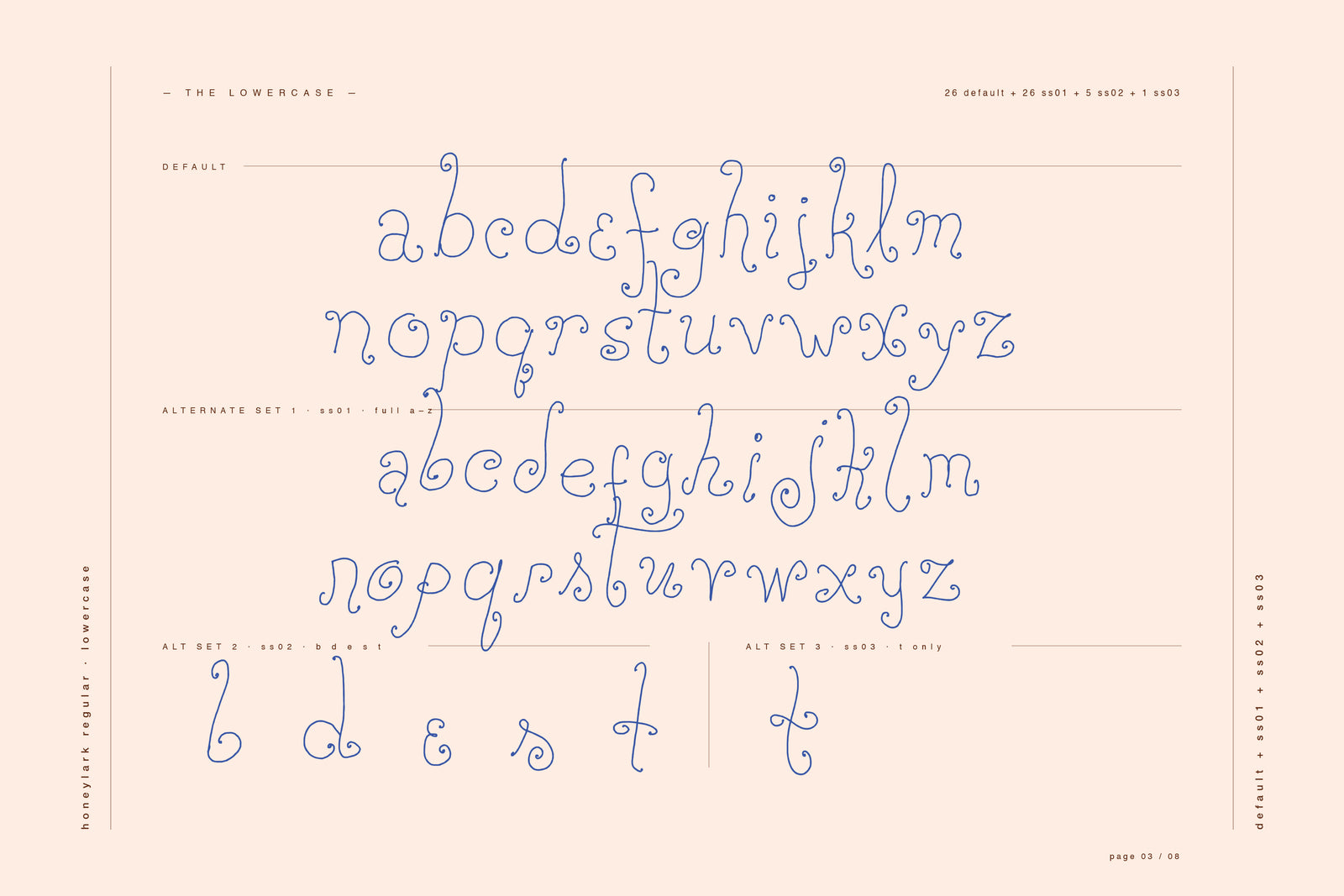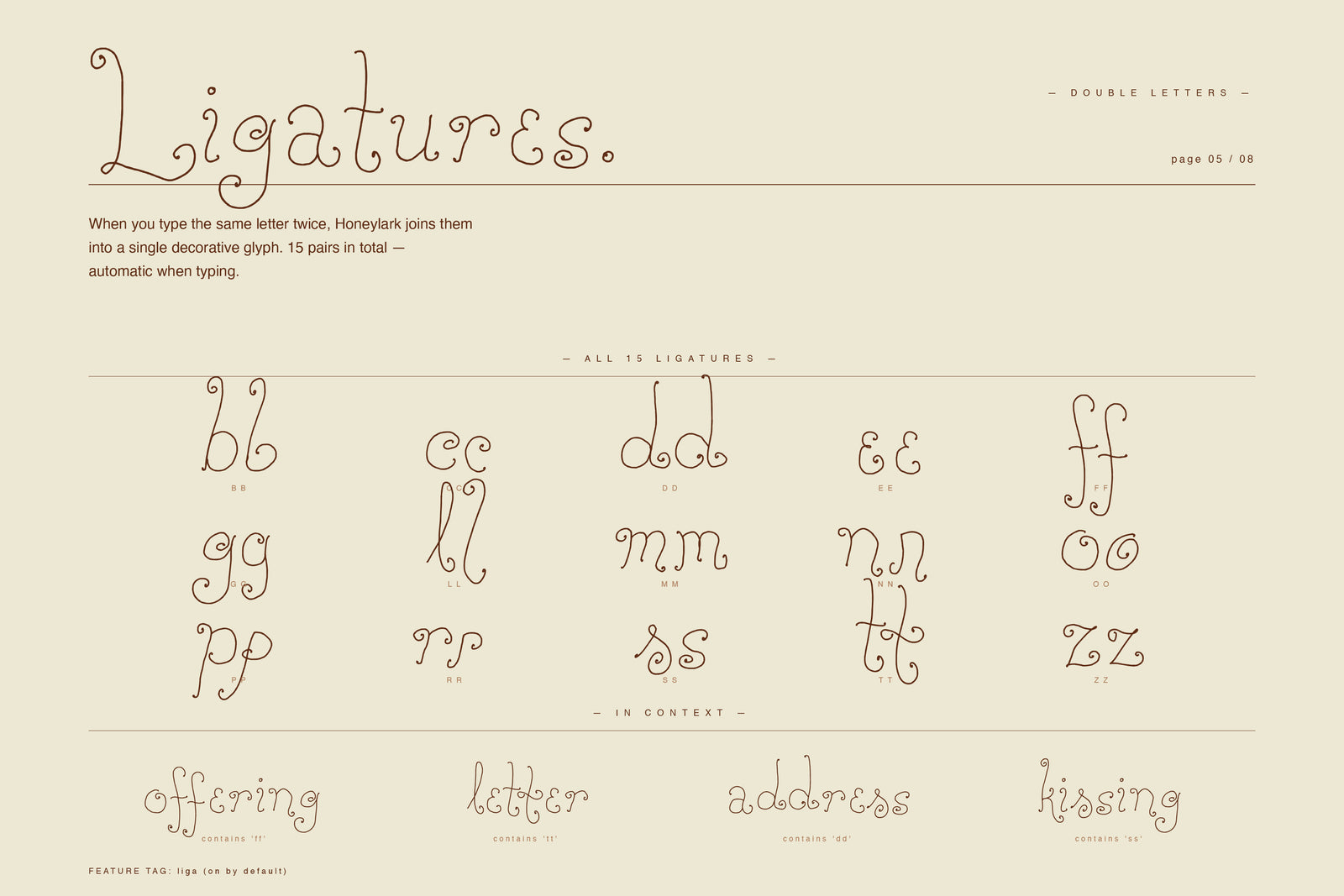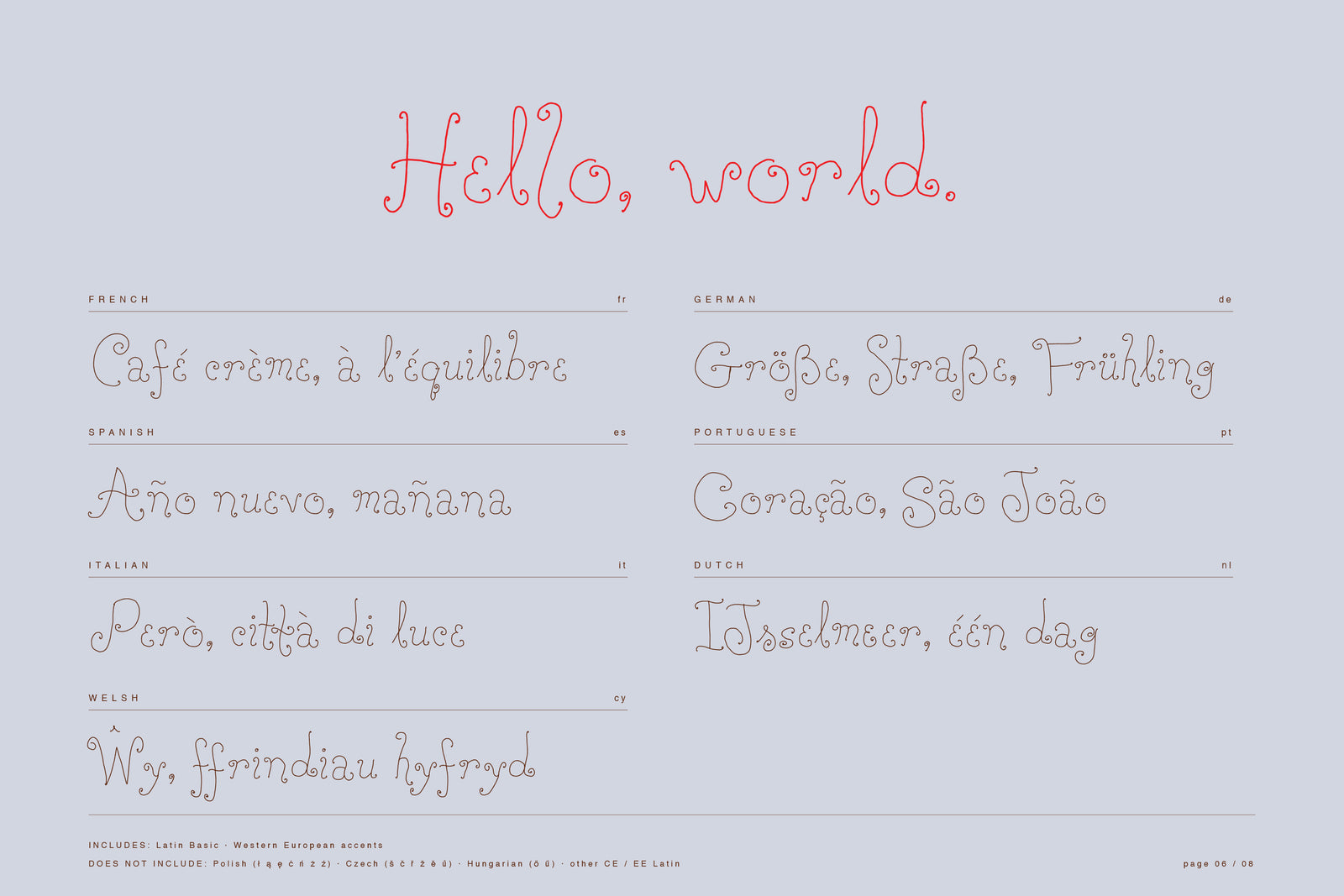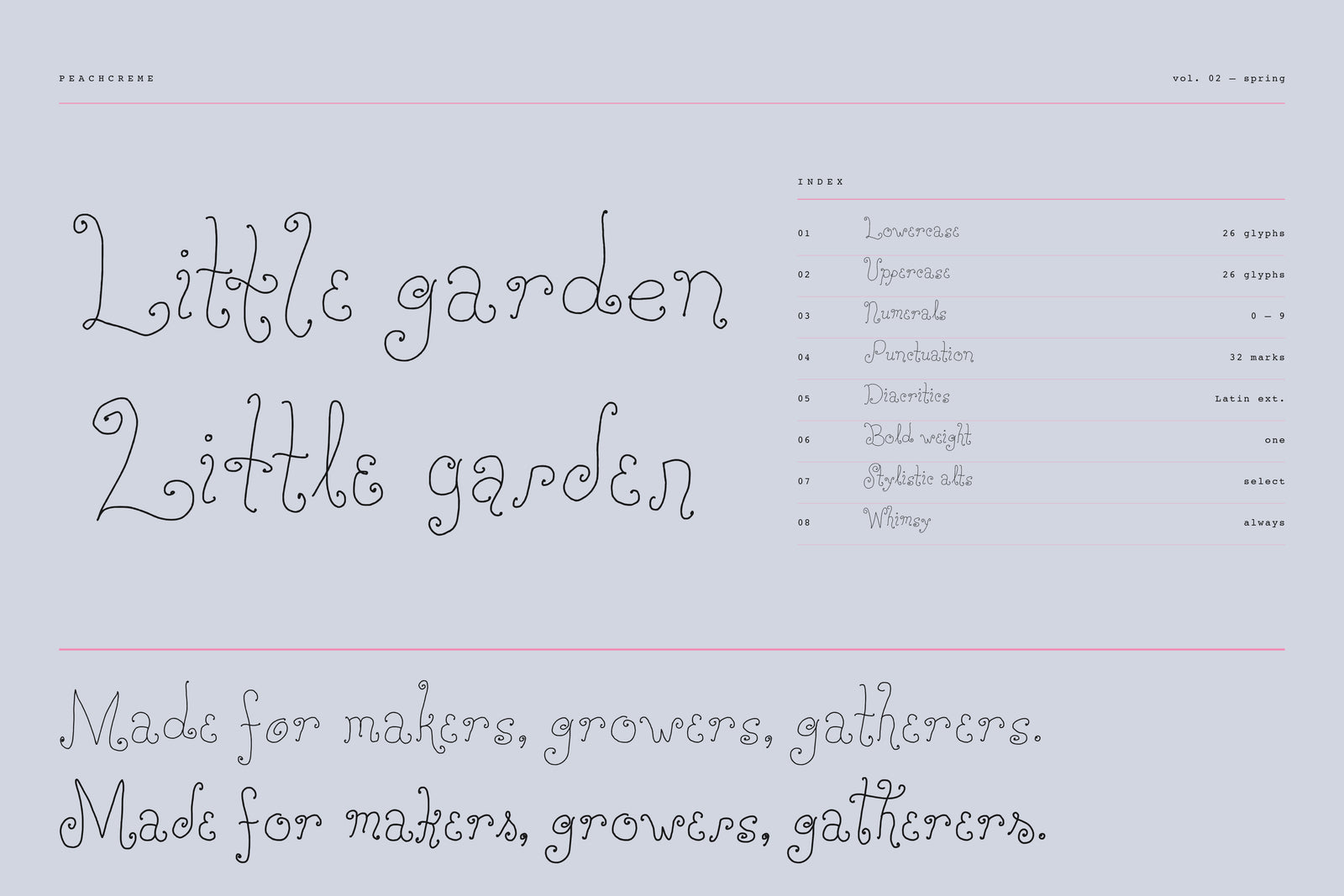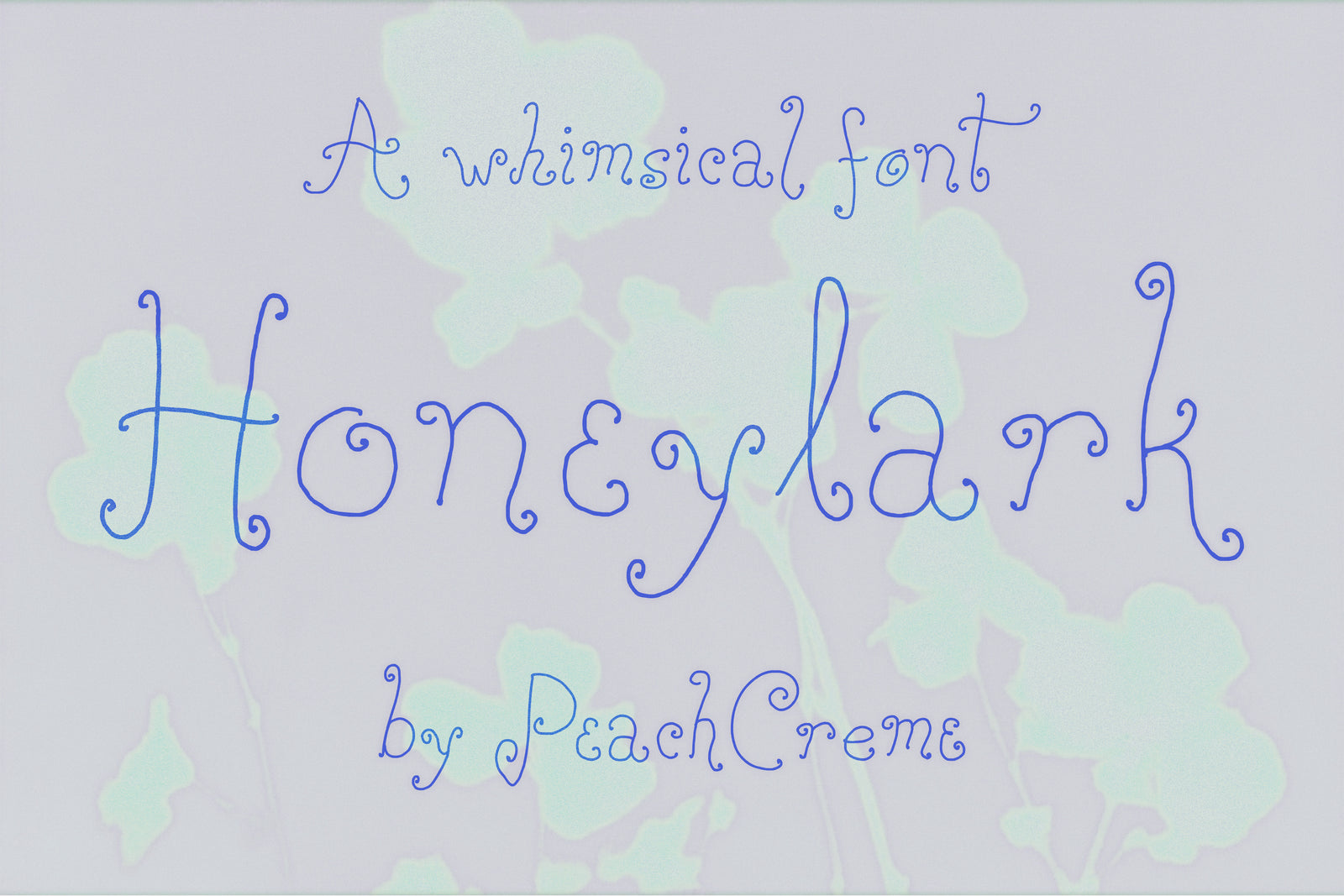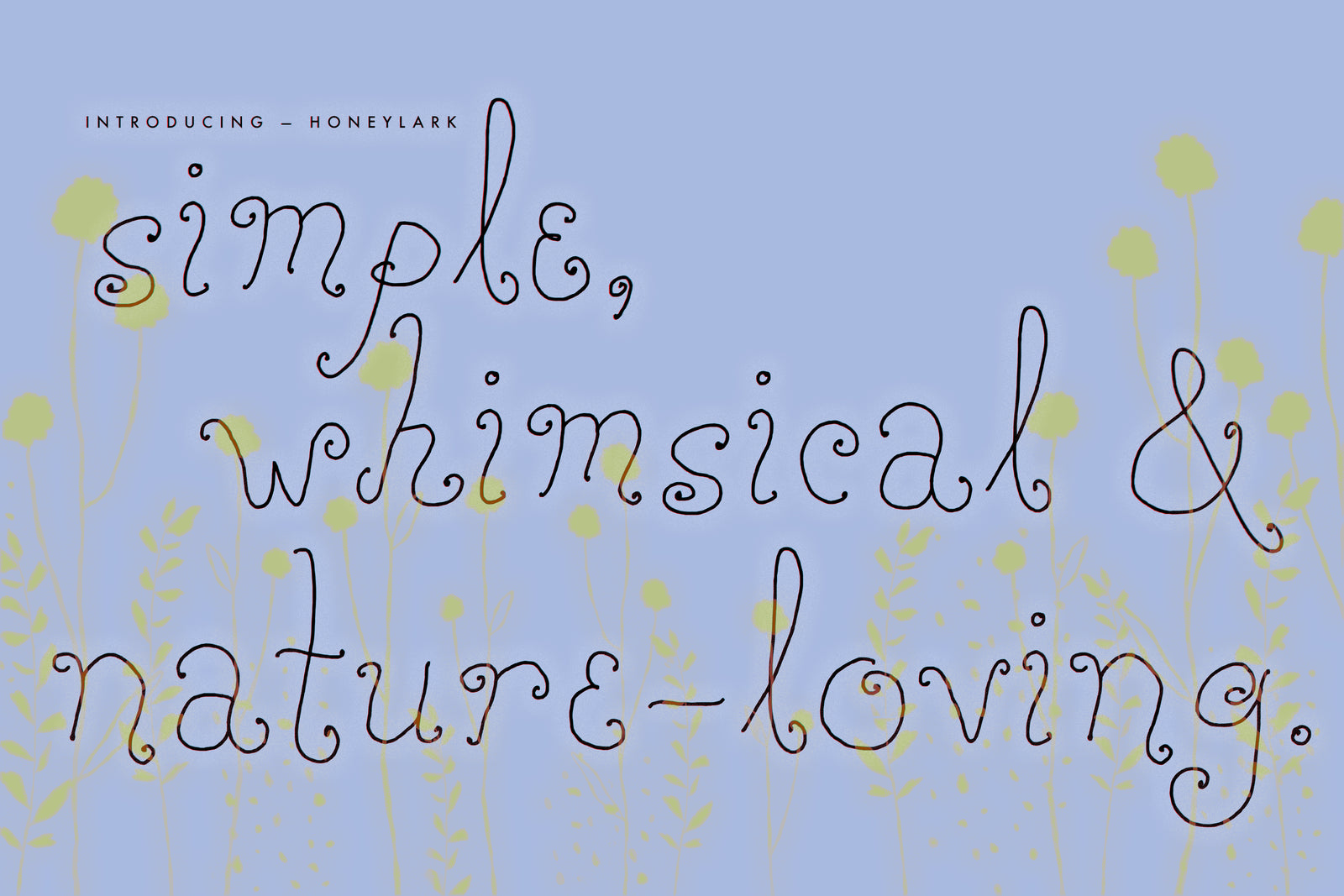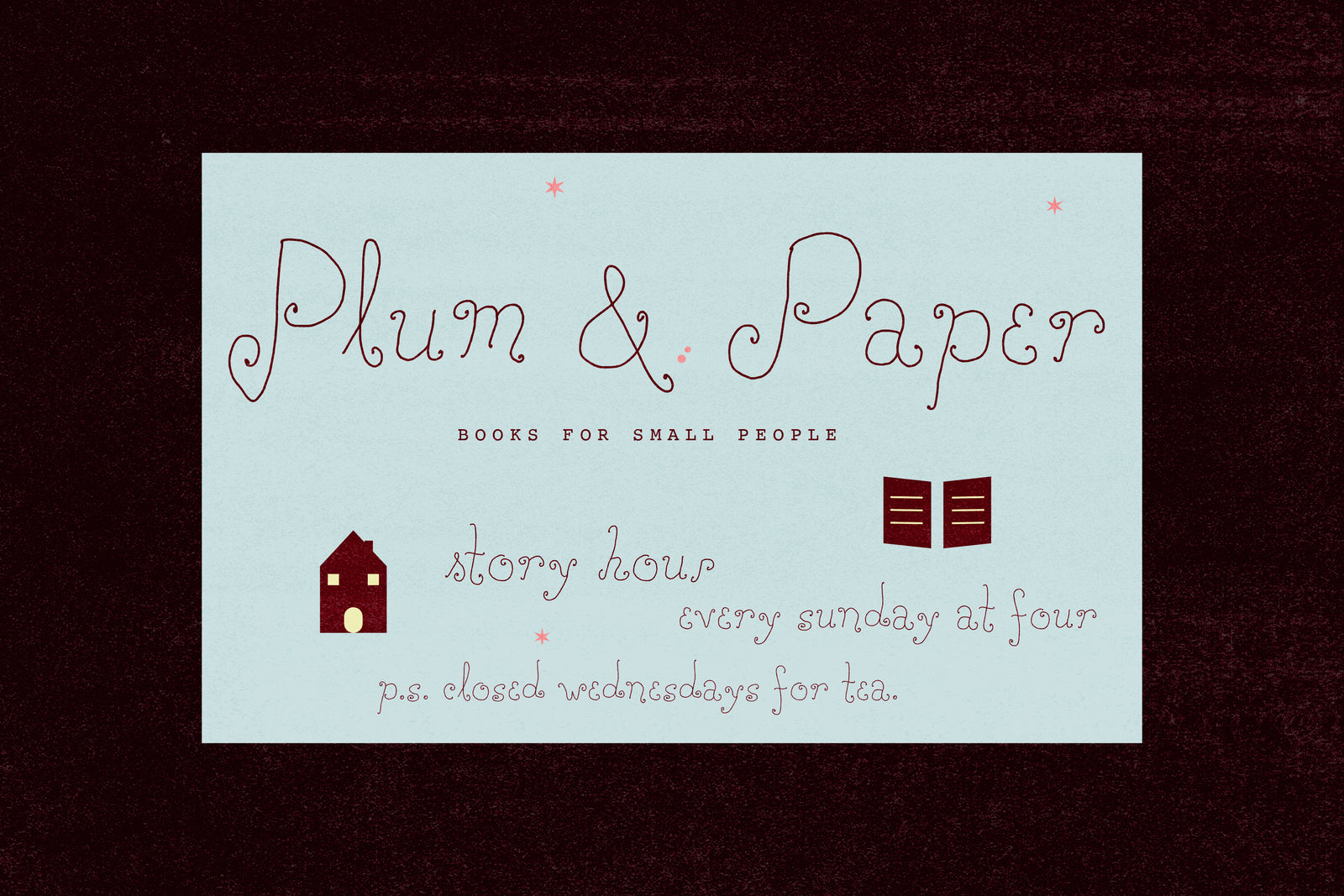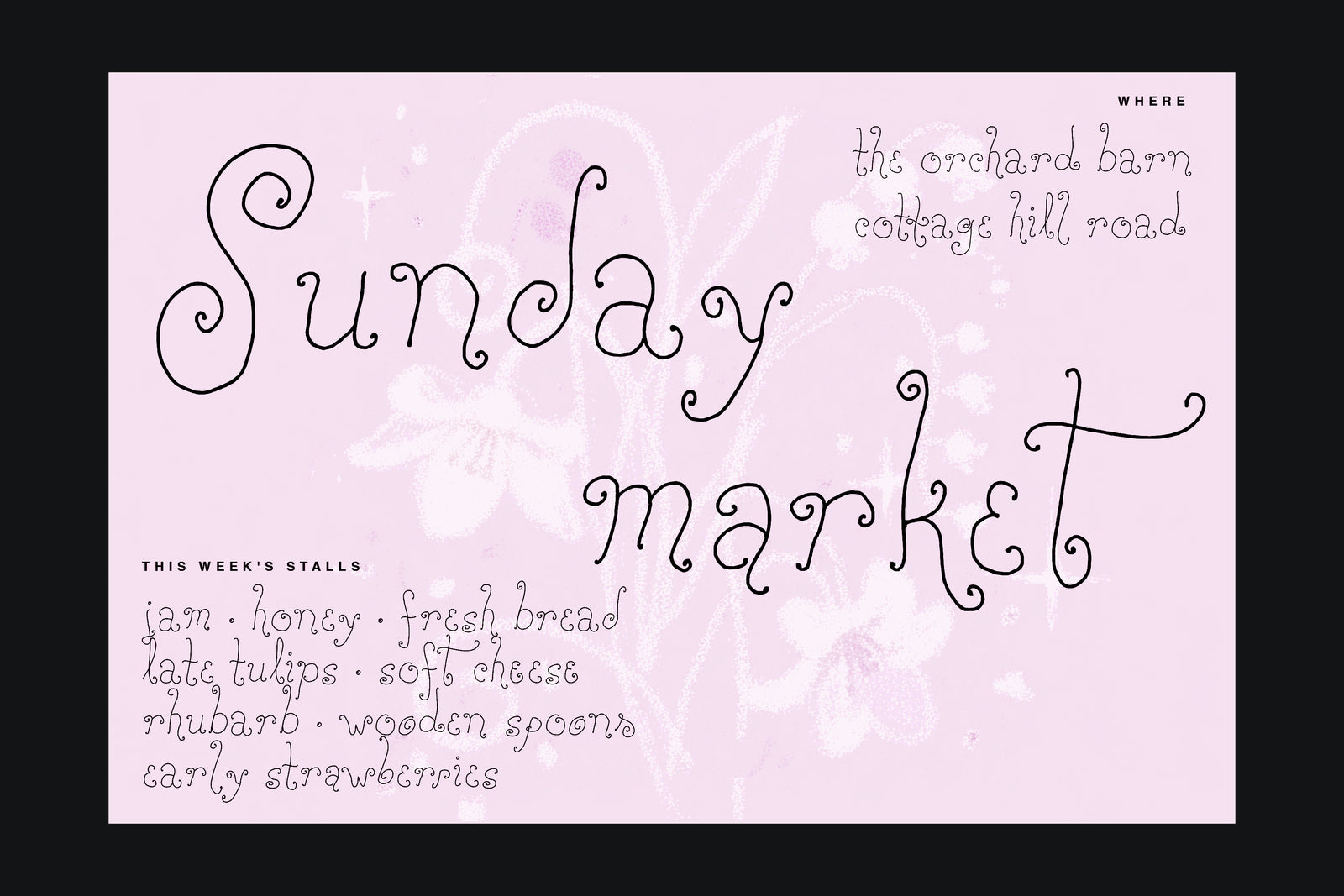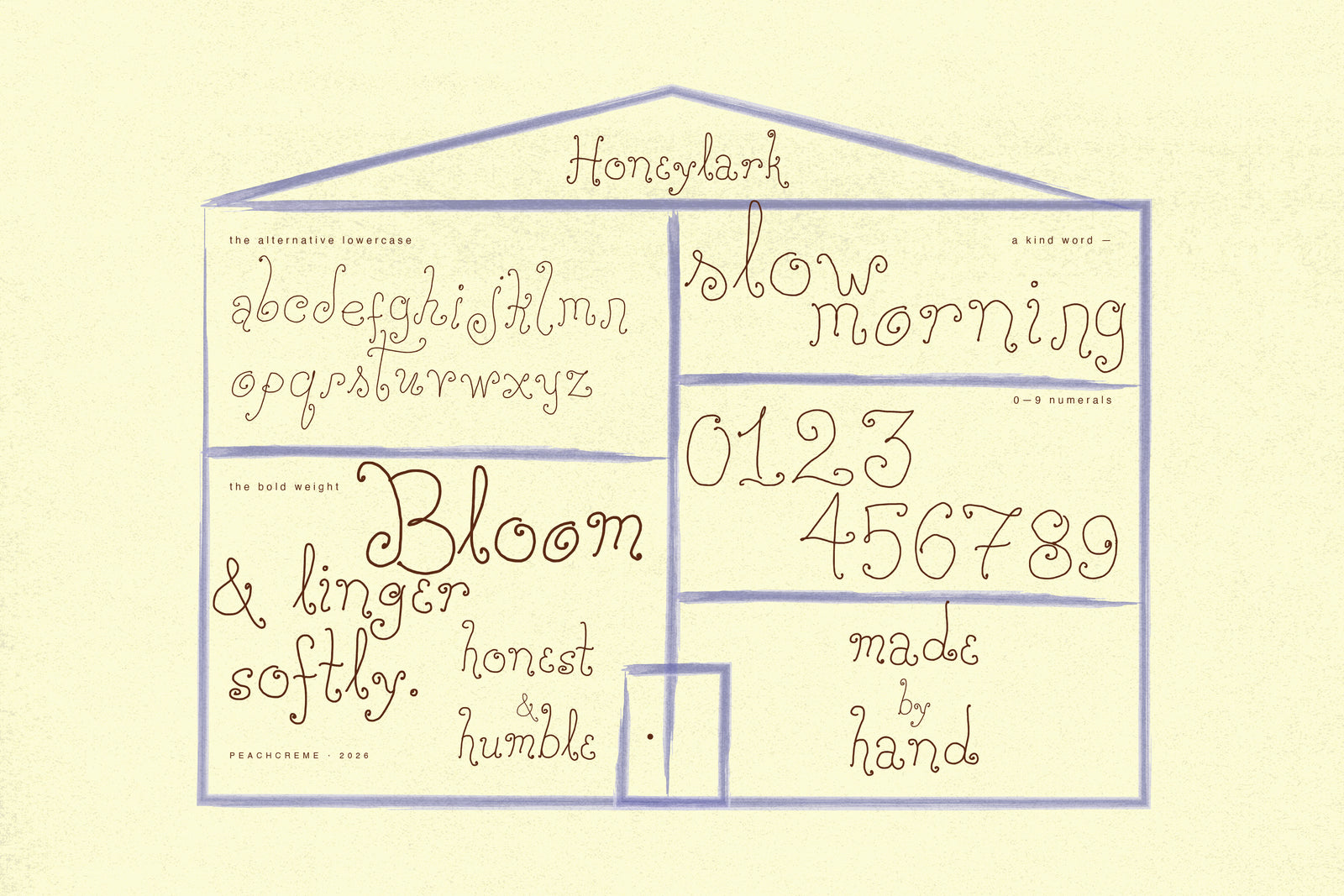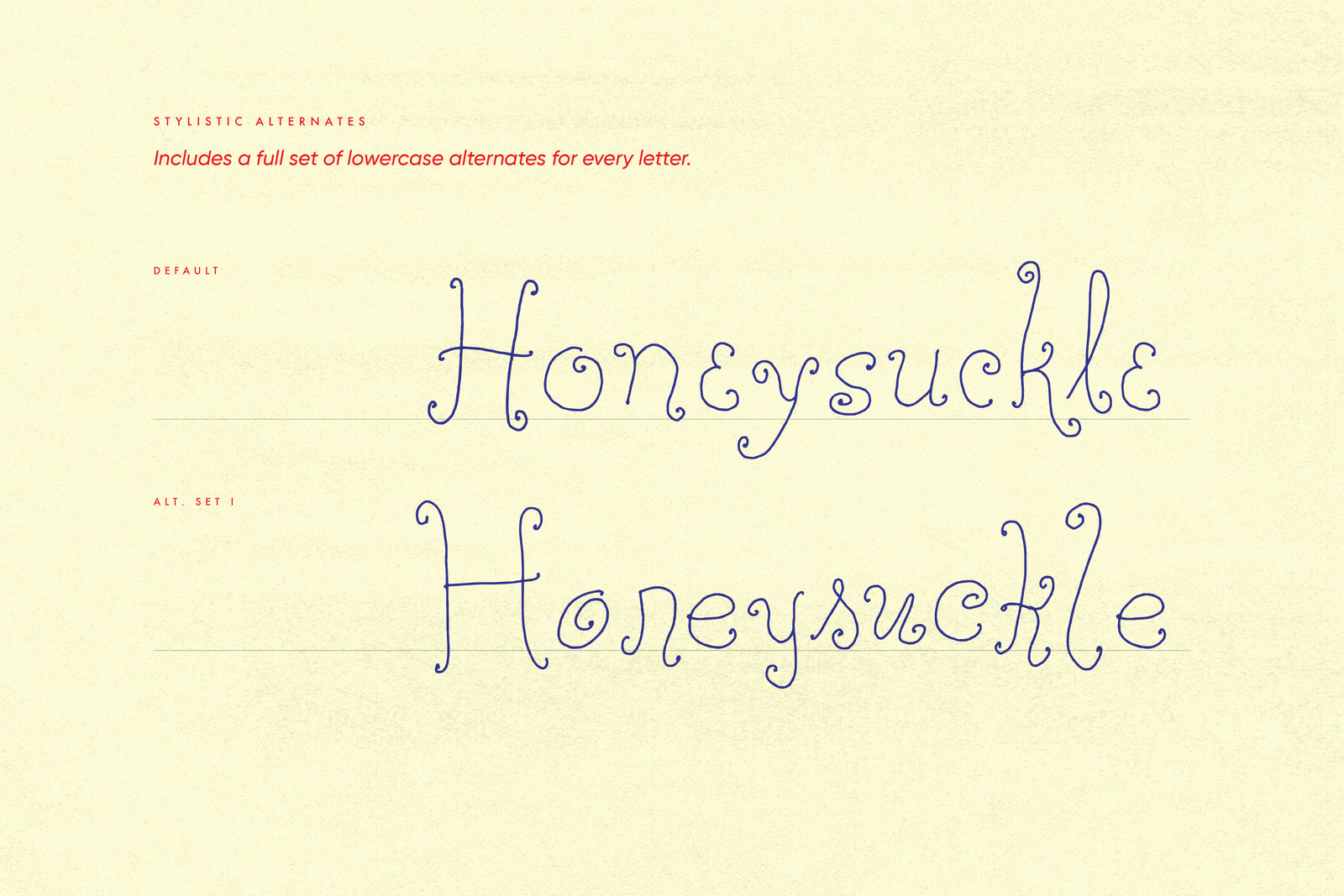
Honeylark//Whimsical Font
Honeylark is a playful, hand-lettered typeface with organic loops and gentle curves. Every uppercase and lowercase letter includes at least one stylistic alternate, giving you flexibility to create truly unique designs.
The font features automatic ligatures that join double letters into decorative glyphs, plus a bold weight for added versatility. Perfect for posters, packaging, greeting cards, branding, children's books, and any project needing a touch of handmade charm.